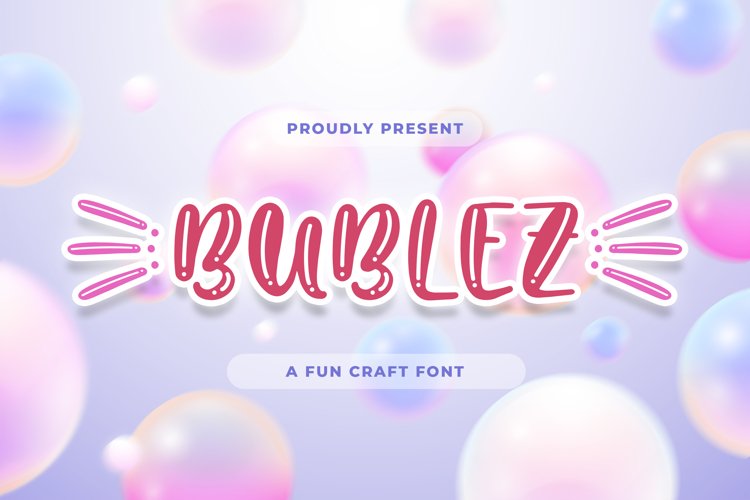
Bubblez - Fun Craft font that will make your designs look unique and fun.
It’s perfect for labels, quotes, posters, DIY projects, branding, packaging, greeting cards, websites, photography overlays, signs, window art, scrapbooking, tags and so much more!